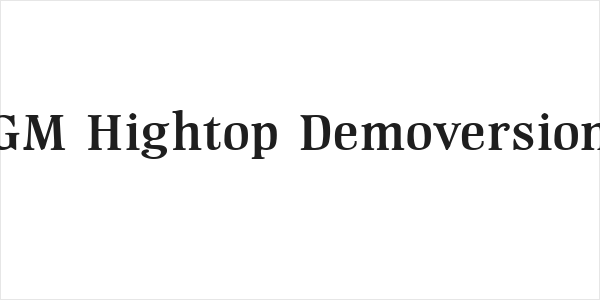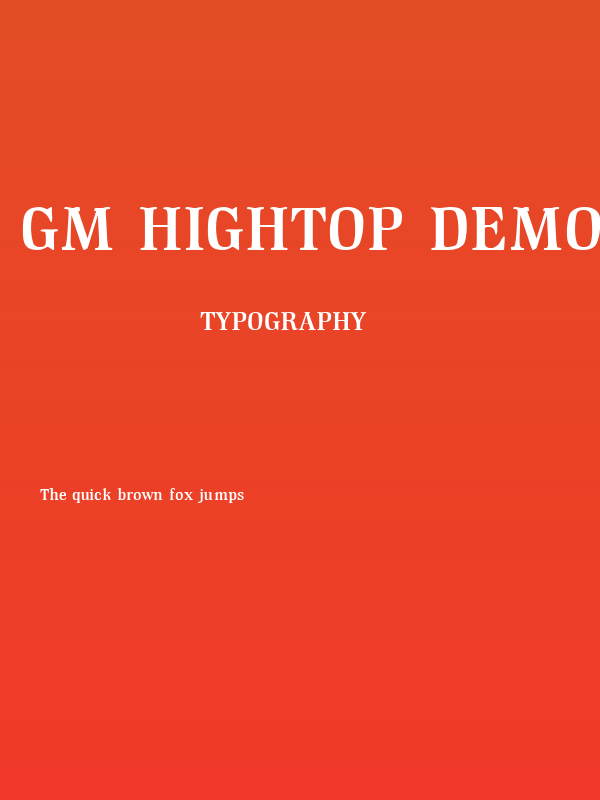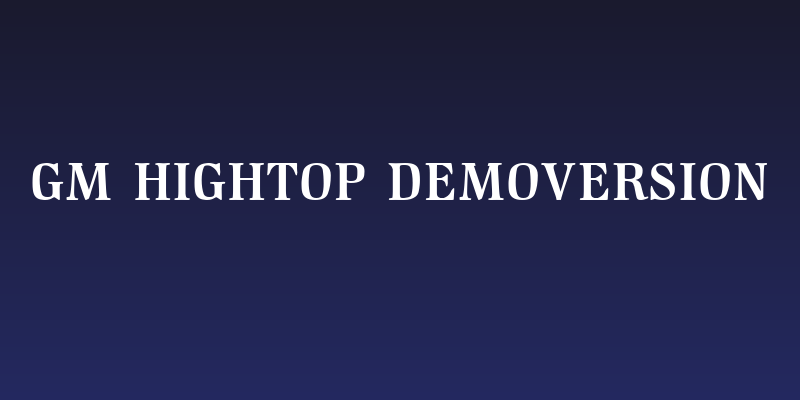
GM Hightop Demoversion Font
GM Hightop Demoversion Description
This font exhibits a classic serif style with strong, bold strokes and high contrast between thick and thin lines. The serifs are pronounced, adding a touch of elegance and tradition to the overall appearance. The uppercase letters are tall and commanding, while the lowercase letters maintain a consistent and harmonious flow. The numerals are clear and distinct, making them easily readable. Special characters are well-defined, complementing the overall design. This font is versatile, suitable for both digital and print media, and can be used to convey a sense of authority and sophistication.
| Proposed Projects | Ideal for book covers, editorial design, formal invitations, and branding projects that require a touch of sophistication. |